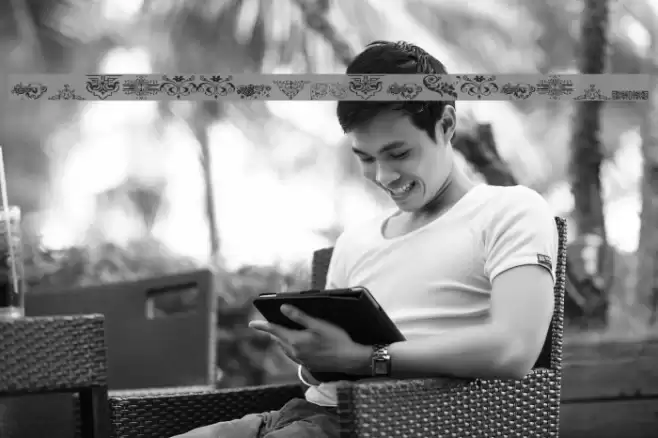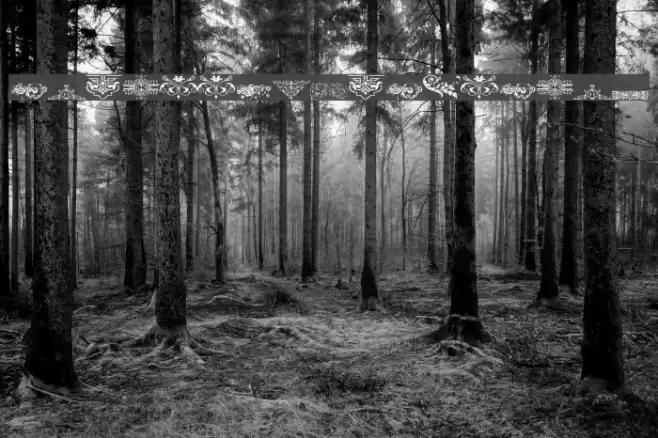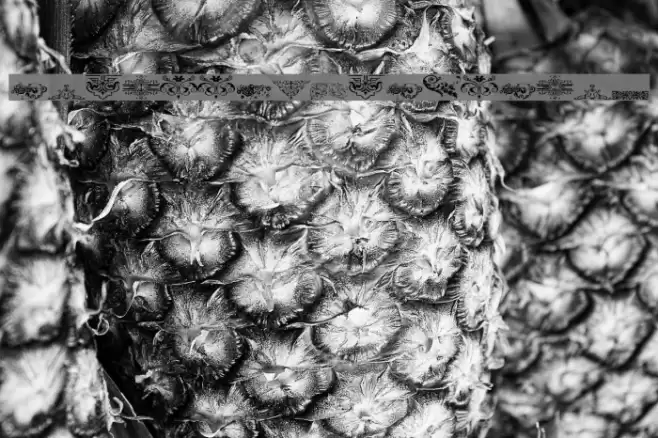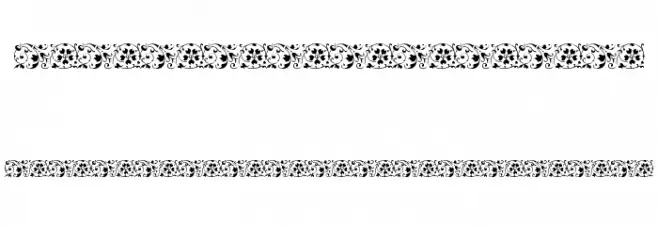
Vintage Decorative Signs 19 Font
Vintage Decorative Signs 19 Description
A collection of highly ornamental, vintage-inspired decorative elements and borders featuring intricate flourishes, swirls, and floral motifs. The designs are monochromatic and showcase a high level of detail, suitable for embellishing documents or signage.
Intricate vintage decorative borders and flourishes from Uncategorized fonts.
- Proposed Projects: Wedding invitations, certificates, vintage posters, decorative signage, book covers, event programs.
- Contrast: High
- Overall Style: Vintage, Decorative
- Use Case: Borders, embellishments, dividers, ornamental accents.